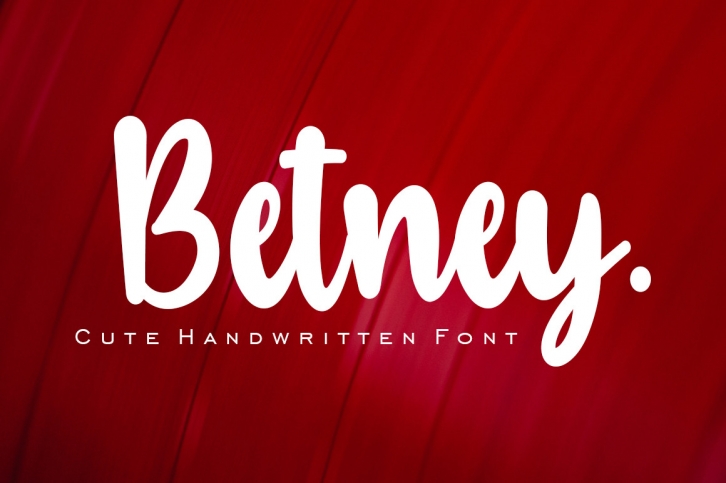
Betney is a bold and soft handwritten font, casual and stylish, crafted with character and an elegant touch. It’s perfect for your favorite projects like album names, photography, quotes, t-shirts, logo designs, brand names and many other projects that require a soft and stunning touch!